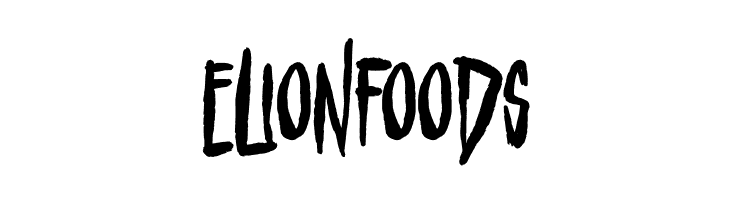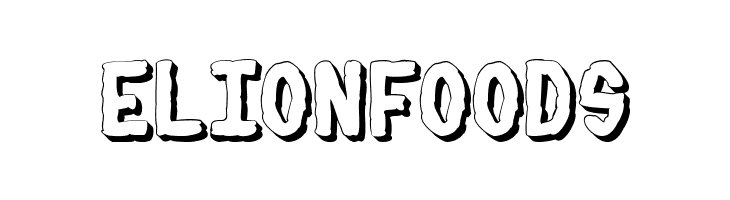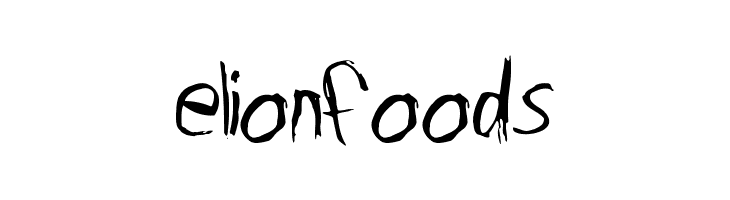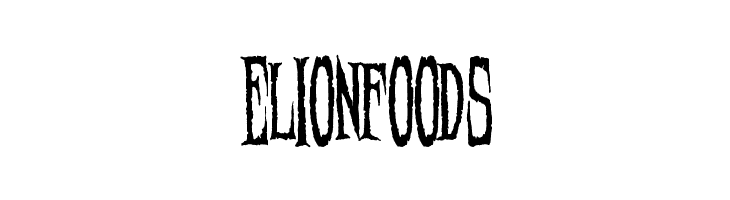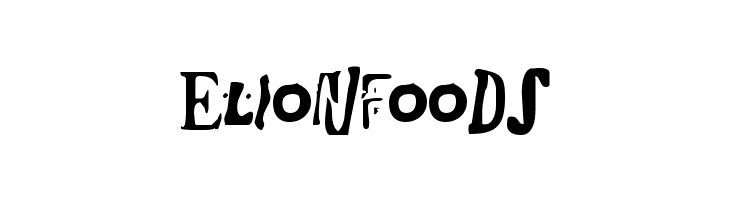
Wheels Font
A bold, geometric font with strong, uniform strokes and a modern aesthetic.
Bradleys Font
A bold, rounded font with a playful and modern aesthetic.
HoMicIDE-EFfeCt Font
A dripping, horror-themed font with bold, irregular characters.
PSYCHO Font
A bold, playful font with a cartoonish, three-dimensional style.
Psycho-Poetry Font
A dynamic, hand-drawn font with expressive brush-like strokes.
Losers Font
A bold, playful font with exaggerated curves and a cartoonish style.
Bradlies Font
A bold, outlined font with a modern and playful aesthetic.
Needleteeth Psycho Font
A sharp, jagged font with an intense, dramatic style.
Nihilschiz-Handwriting Font
A casual, handwritten font with smooth, medium-thick strokes.
Psychosis Font
A modern, geometric font with a futuristic and symmetrical design.
Advent_Psychosis Font
A bold, distressed font with a grunge, textured style.
GRAPHIC PSYCHOPATHY Font
A chaotic, edgy font with jagged, rough edges and irregular strokes.
Monomen Font
A bold, rounded, and geometric font with a modern and playful style.
GIANtX Font
A bold, angular font with a strong, geometric style.
garbage Font
A bold, edgy font with irregular, jagged edges and dynamic style.
Psychotic Robots Font
A futuristic, robotic font with tall, narrow letterforms and sharp angles.
Psycho Bold Italic Font
A bold, italicized font with a chaotic and energetic style.
Psychotic Font
A chaotic, jagged font with a distressed, edgy appearance.